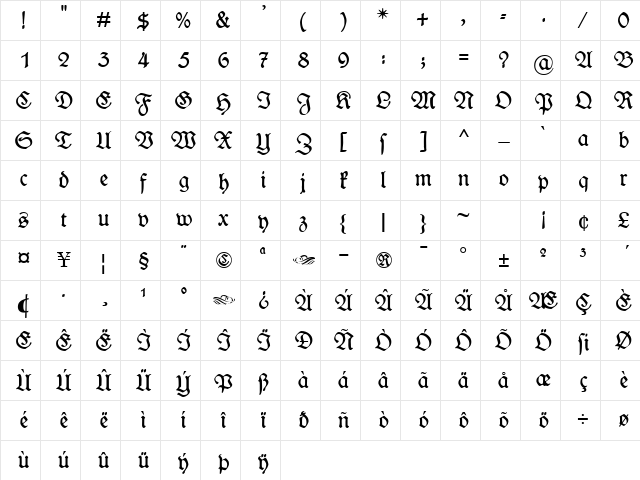
WieynckFrakturUNZ1L Italic
| Designer | Dieter Steffmann |
Design Context for WieynckFrakturUNZ1L Typeface
WieynckFrakturUNZ1L channels the dramatic heritage of Fraktur and Gothic scripts, bringing a sense of historical gravitas to any design. The dynamic lean of this cut emphasises speed and emphasis in any layout.
Well-suited to band logos, craft beer branding, tattoo lettering, and heritage-themed identities.
Font Pairing: Pair with a clean neutral sans-serif for body copy to let WieynckFrakturUNZ1L's character lead without overwhelming the composition.
Pro Tip: Use WieynckFrakturUNZ1L sparingly at large sizes. Even a single word set in blackletter can define the visual register of an entire design.